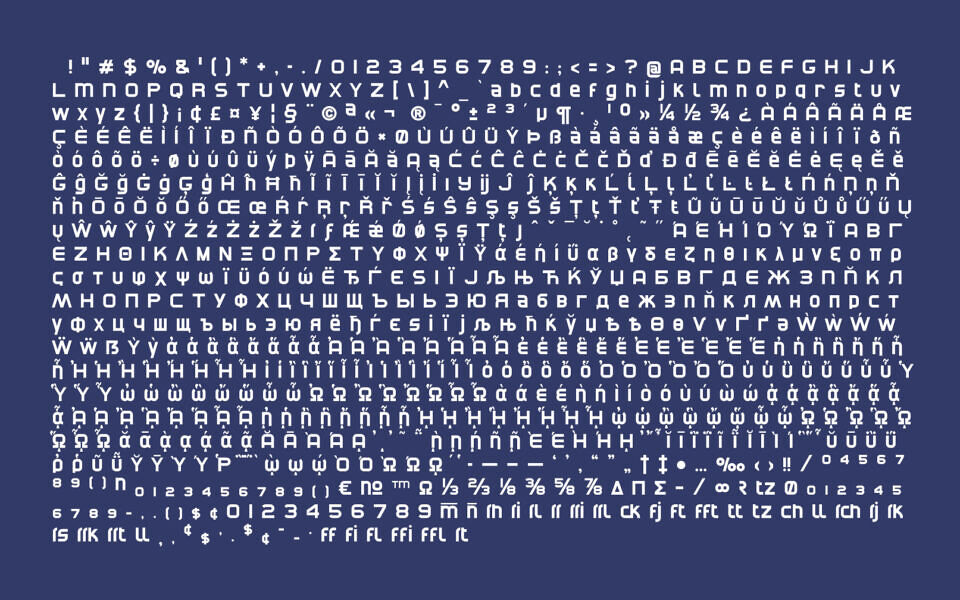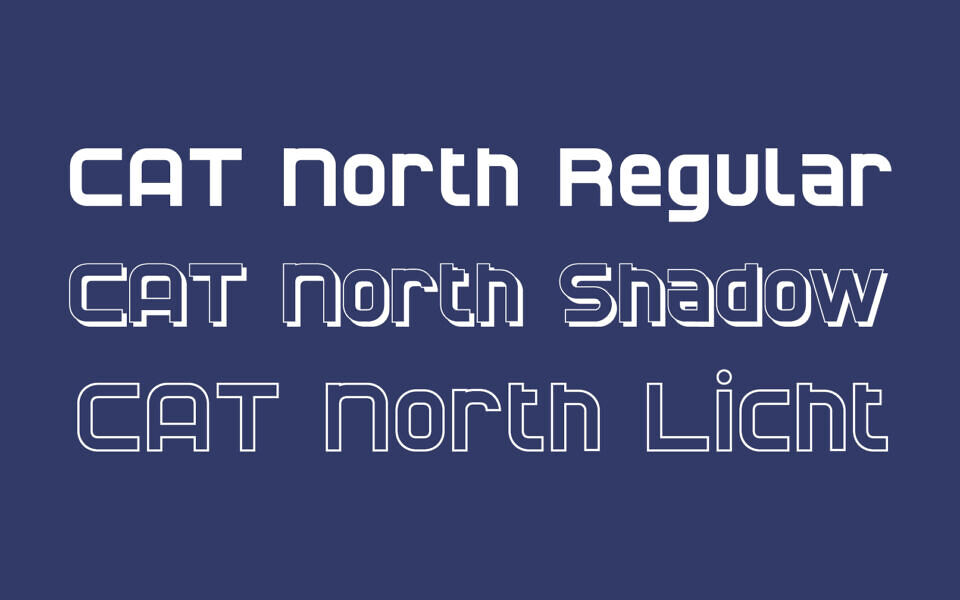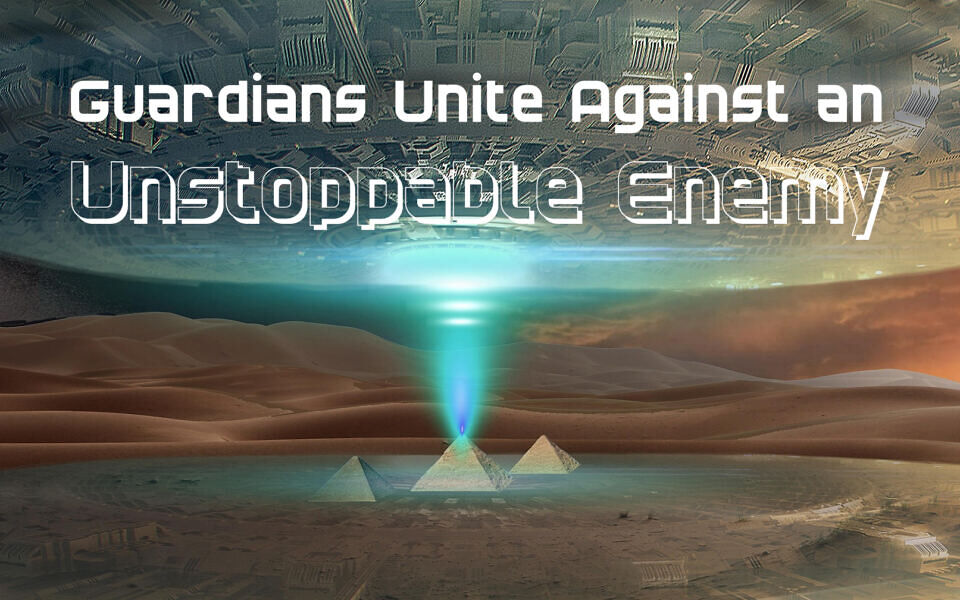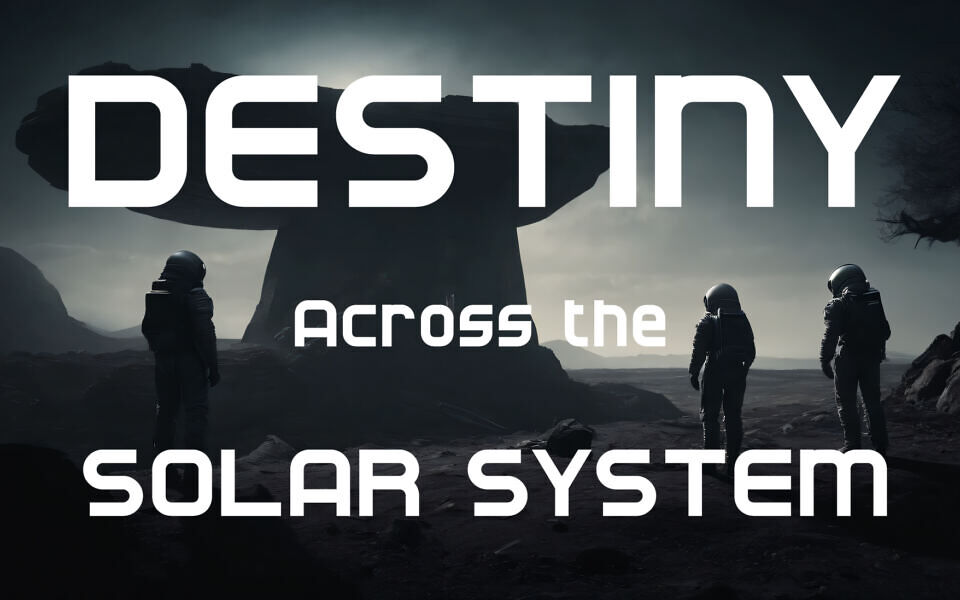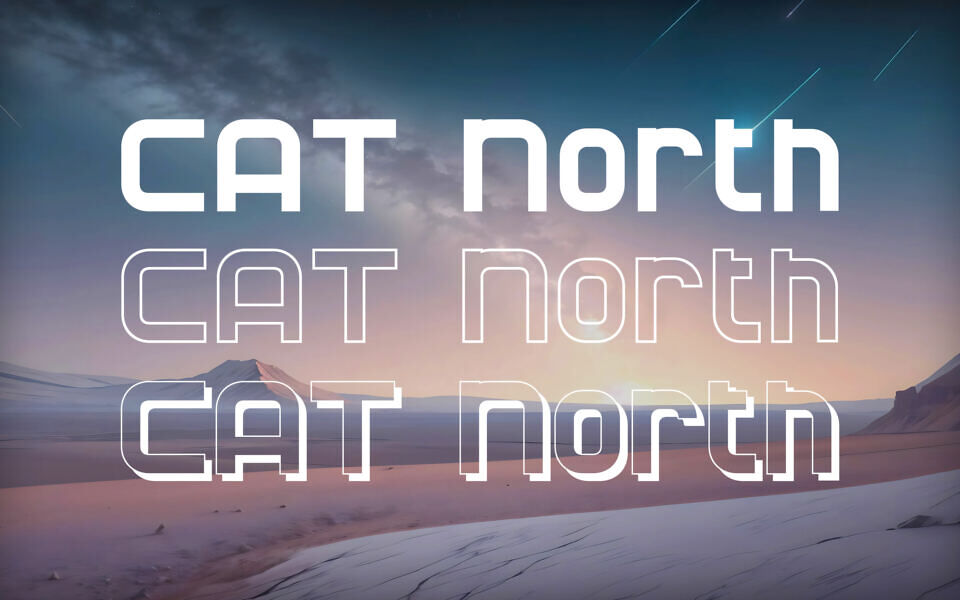
CAT North Font Family
CAT North is a bold, 100% free techno font designed by Peter Wiegel. Its clean, geometric shapes and futuristic aesthetic make it an excellent choice for eye-catching headlines, tech-themed branding, digital displays, and impactful poster designs.
Available in three distinct variations (Regular, Licht “Light”, and Shadow), this versatile typeface offers creative flexibility for modern projects. The expanded character set includes an impressive 873 glyphs, featuring comprehensive accent support and the German capital sharp S (ẞ).